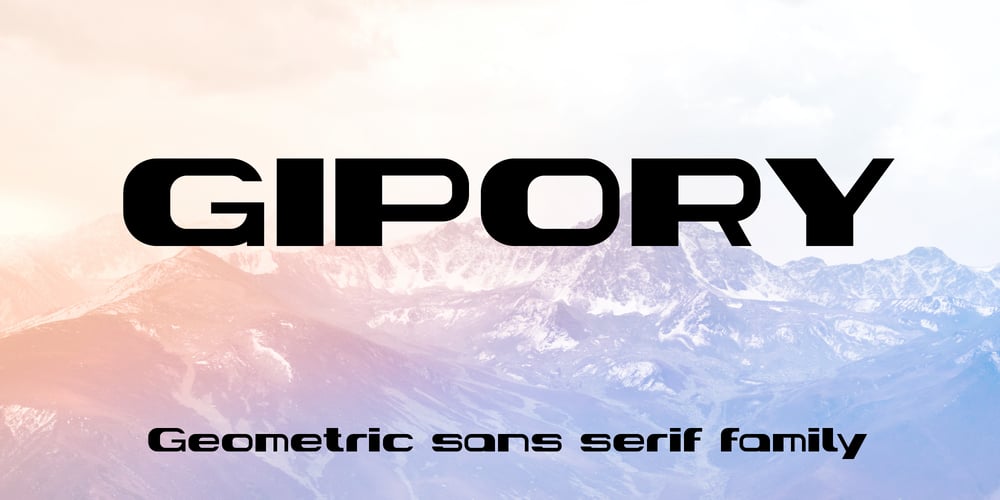
Gipory Font Family was designed by Volodymyr Berla and published by VladB. Gipory contains 4 styles and family package options. Gipory is a bold modern sans serif geometric font, includes upper and lower case characters, Latin, Cyrillic, Latin Eastern Europe, Turkish, Baltic and other, 500+ symbols.Gipory family consists of 4 types of thickness.Gipory fonts will be useful in developing a brand, creating posters and other graphic products, and for word processing.